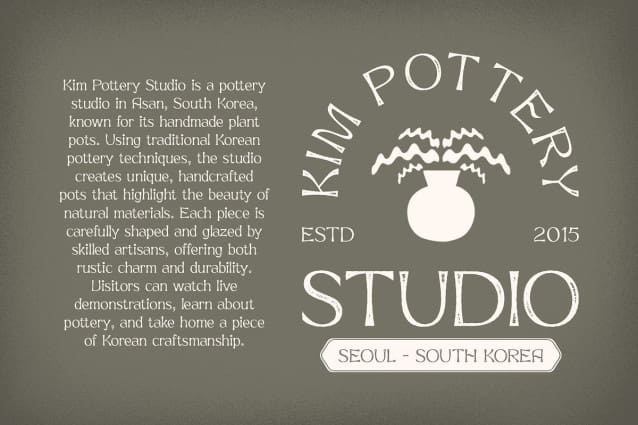
Neckyn Stamp Font
Neckyn Stamp Font is a modern display sans serif font that features quirky letterforms, exuding playfulness and charm. This unique typeface is designed to capture attention with its lively shapes and fun aesthetic, making it perfect for creative projects aimed at conveying a cheerful vibe. Enhanced with a distinctive stamp effect, Neckyn Stamp offers a textured, handmade quality that adds visual interest and uniqueness to any design.
Textured Charm for Unique Designs The stamp effect in Neckyn Stamp not only enhances its playful character but also imparts a sense of authenticity and warmth. This textured quality gives the font a handcrafted feel, setting it apart from standard typefaces. Each letterform is designed to be eye-catching, ensuring that your designs stand out and resonate with audiences. The quirky shapes contribute to a fun atmosphere, making this font an ideal choice for projects that seek to spark joy and creativity.
Perfect for Attention-Grabbing Projects Whether you’re designing posters, children’s materials, or promotional graphics, Neckyn Stamp brings a delightful personality to your projects. Its vibrant letterforms can elevate any design, capturing the essence of fun and engagement. This font is especially well-suited for applications that require a bold and cheerful expression, making it a go-to choice for brands looking to make a memorable impact.